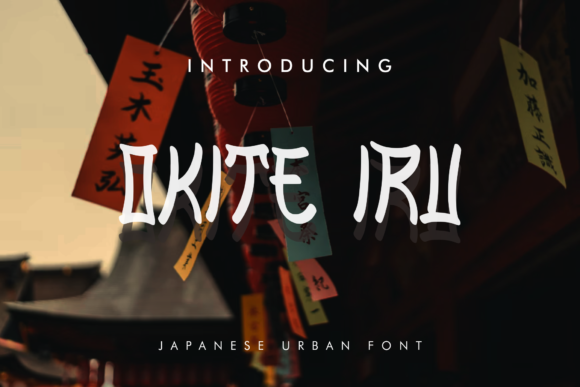
Discover Okite Iru, a captivating display font that draws inspiration from the rich culture of Japan. Immerse yourself in the elegance and authenticity of this font, meticulously crafted to bring a touch of Eastern charm to your creative projects. With its distinctive characters and flowing lines, Okite Iru promises to leave a lasting impression.
Unleash your creativity and let Okite Iru guide you on a visual journey. Whether you're designing product packaging, branding projects, magazine covers, or social media posts, this font is the perfect companion. Its versatility extends to wedding invitations and personal projects, adding an artistic flair to any text you desire.
Okite Iru is not just a font; it's an artistic expression that invites you to connect with the beauty of Japanese culture. Its delicate brushstrokes and graceful curves evoke a sense of serenity and balance. Embrace the harmony of this font and let it elevate your designs to new heights.
As you explore the depths of Okite Iru, you'll discover a world of possibilities. Its characters dance across the page, creating a visual symphony that captures the essence of Japanese aesthetics. Indulge in the charm of this font and let your imagination run wild.
Take the plunge today and embark on a creative journey with Okite Iru. Dive into the depths of this captivating font and discover a world of beauty and inspiration. Let your words take flight and soar with Okite Iru, the ultimate display font for those who seek elegance, authenticity, and a touch of the Orient.